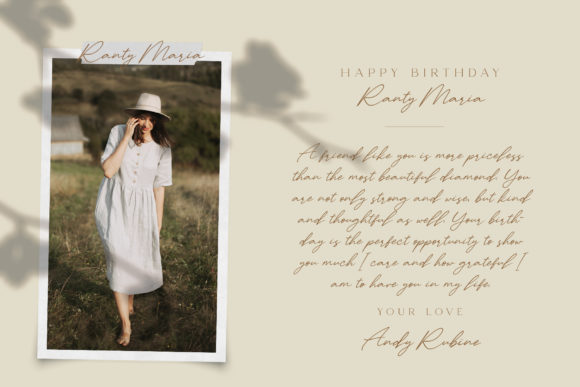
The Designer’s Delight: Audys Font
I’ll never forget the moment I stumbled upon Audys Font while working on a project for a client who wanted a delicate, elegant look. I had been scouring the internet for hours, trying to find the perfect font to match their brand’s personality. And then, I saw it – Audys Font. Its beautiful, handwritten letters immediately caught my eye, and I knew I had found the one. In this article, I’ll share my love for Audys Font, its features, and how to make the most of it in your designs.
What I Love About Audys Font
- ✨ Delicate and elegant handwritten style
- ✅ Well-rounded letters that exude sophistication
- 💫 Incredibly versatile – perfect for various design projects
- 🎨 Great for creating a warm and inviting atmosphere
While Audys Font is a stunning addition to any design project, there are a few things to keep in mind:
- ⚠️ May not be suitable for very small font sizes due to its delicate nature
- 🤔 Limited use for body text due to its handwritten style
The Story Behind Audys Font
Audys Font was created with the intention of bringing a touch of elegance and sophistication to design projects. Its designer aimed to craft a font that would be both versatile and beautiful, with a unique character that would set it apart from other fonts.
| Font Name | Audys Font |
| Author | craftsupplyco |
Q: What type of projects is Audys Font best suited for?
Audys Font is perfect for projects that require a touch of elegance and sophistication, such as branding, packaging, and stationery.
Q: Is Audys Font suitable for body text?
While Audys Font is a beautiful font, it’s not ideal for body text due to its handwritten style. It’s better suited for headings and titles.